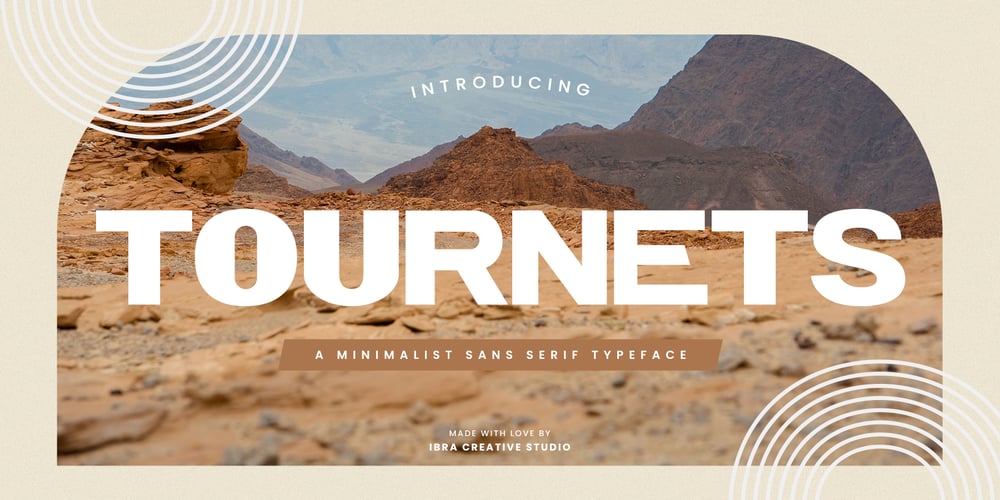
Tournets Font Family was designed by Roisatul Azizah and published by IbraCreative. Tournets contains 1 styles and family package options. Tournets – A Minimalist Sans Serif TypefaceTournets, a minimalist sans-serif typeface, epitomizes simplicity and contemporary elegance. Its clean lines and unadorned characters exude a sense of modernity and sophistication, making it an ideal choice for those seeking a timeless and versatile typographic solution. Tournets seamlessly blends form and function, ensuring optimal readability while maintaining a sleek visual appeal. The balanced spacing and uniformity of its letterforms contribute to a harmonious and understated aesthetic, allowing Tournets to effortlessly adapt to diverse design applications. Whether employed in editorial layouts, branding materials, or digital interfaces, Tournets brings a quiet yet powerful presence, embodying the essence of minimalist design principles for a refined and polished typographic experience. Tournets is perfect for branding projects, logo, wedding designs, social media posts, advertisements, product packaging, product designs, label, photography, watermark, invitation, stationery, game, fashion and any projects.Fonts include multilingual support for; Afrikaans, Albanian, Czech, Danish, Dutch, English, Estonian, Finnish, French, German, Hungarian, Italian, Latvian, Lithuanian, Norwegian, Polish, Portuguese, Slovak, Slovenian, Spanish, Swedish.